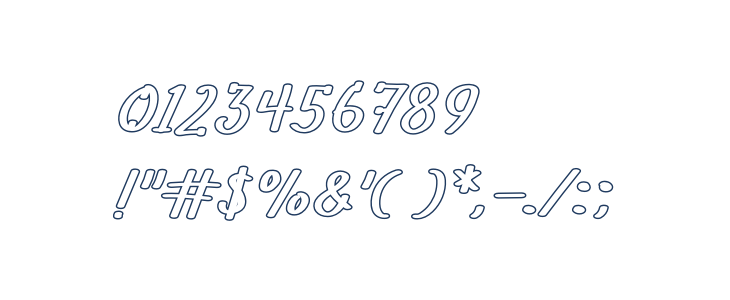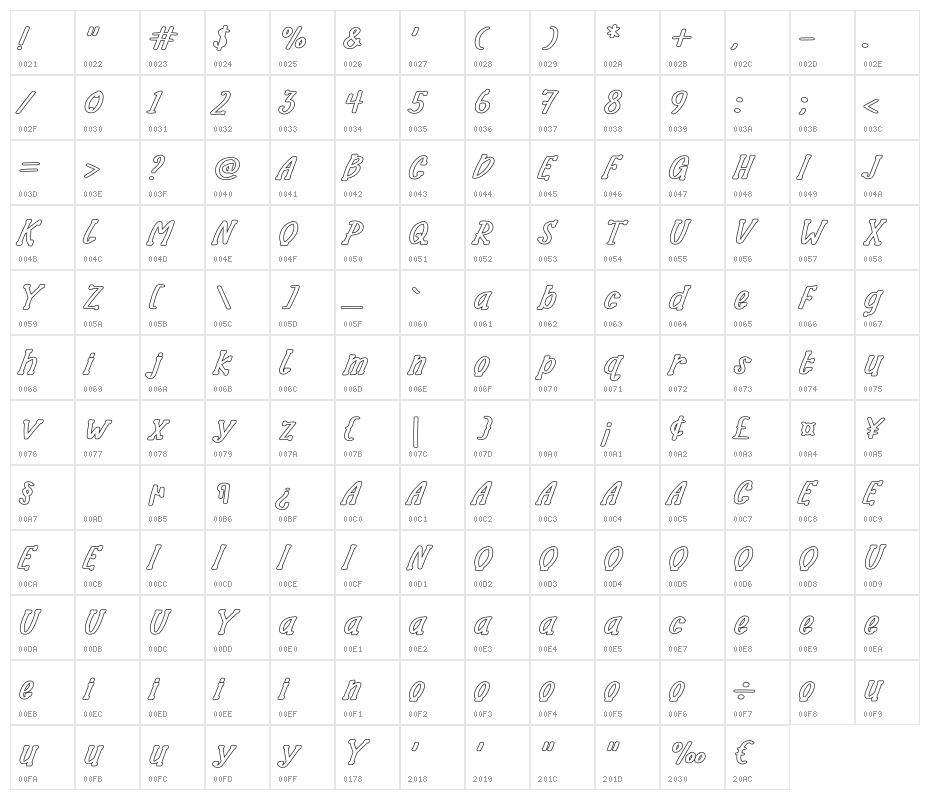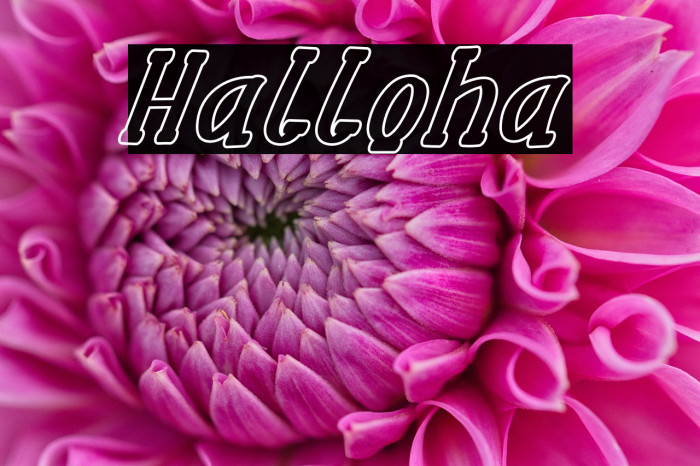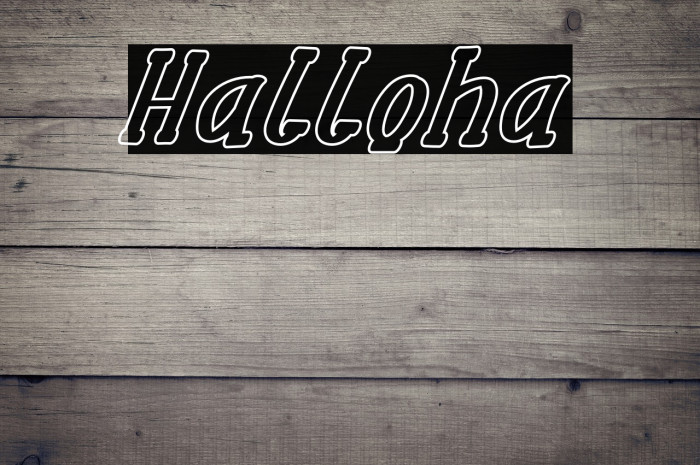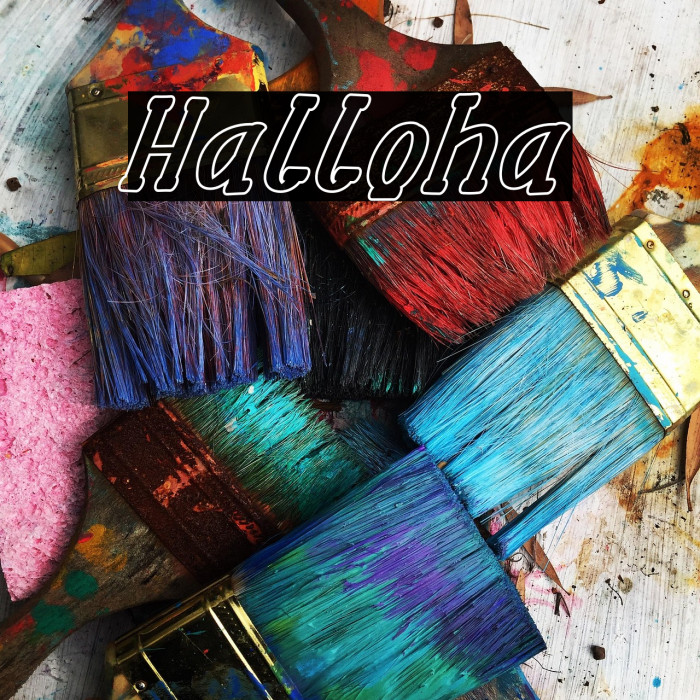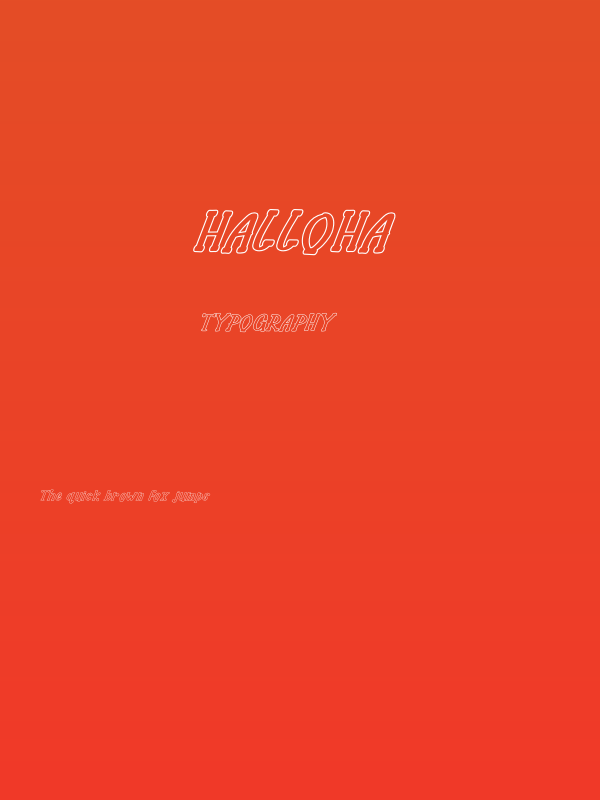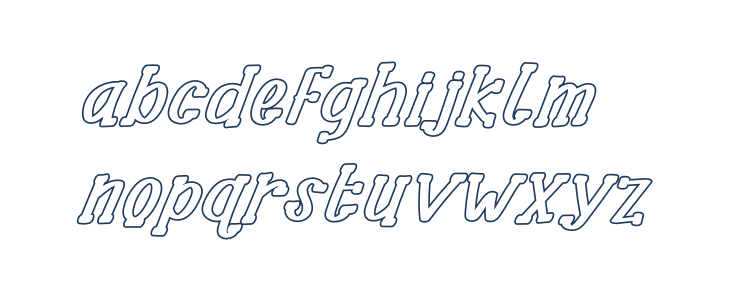
Halloha Font
Halloha Description
This font features a playful and dynamic style with a bold outline that gives it a three-dimensional effect. The characters are slightly slanted, adding a sense of movement and energy. The uppercase and lowercase letters maintain a consistent design, with rounded edges and a smooth flow. The numbers and special characters are crafted with the same attention to detail, ensuring uniformity across all glyphs. This font's unique outline style makes it stand out, making it suitable for creative and eye-catching designs.
| Overall Style | Playful, Energetic, Creative |
| Use Case | Headlines, Posters, Branding |
| Proposed Projects | Ideal for posters, children's books, playful branding, and creative headlines. |